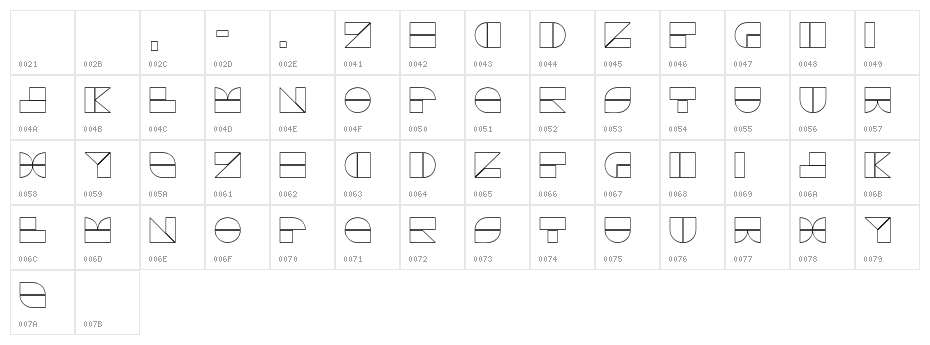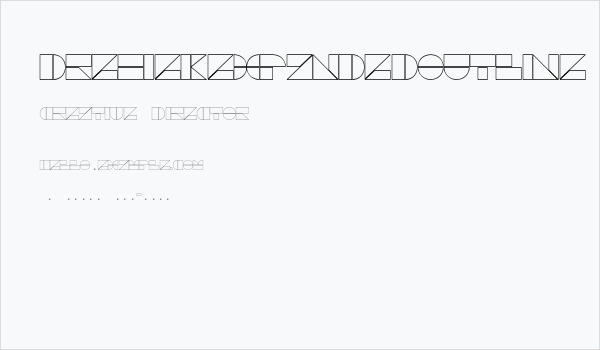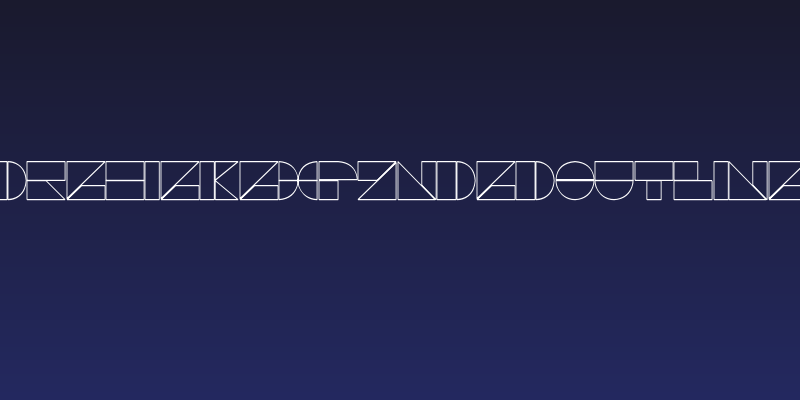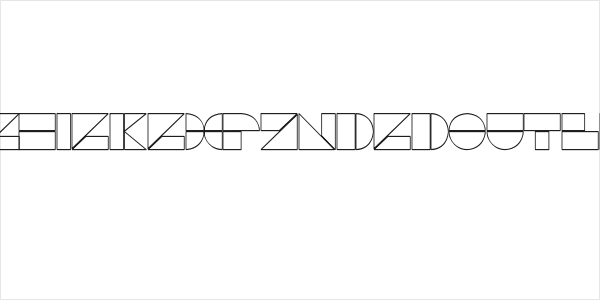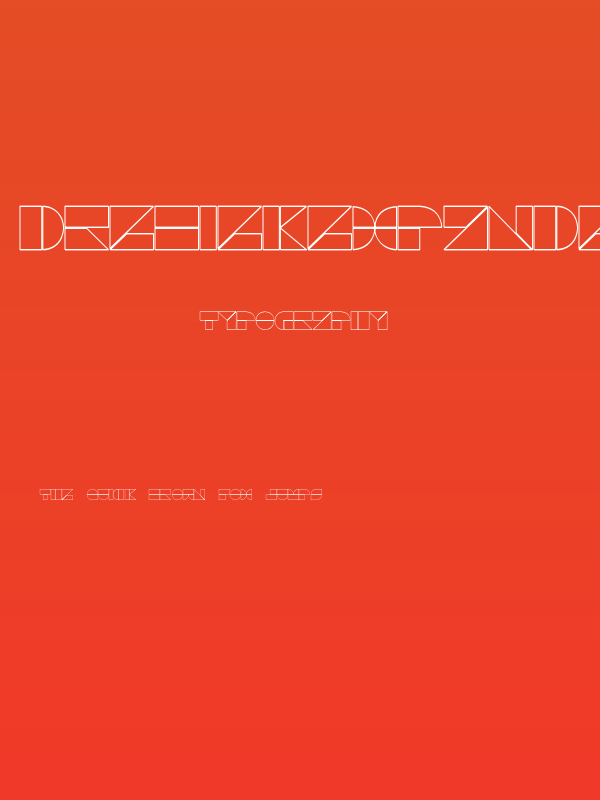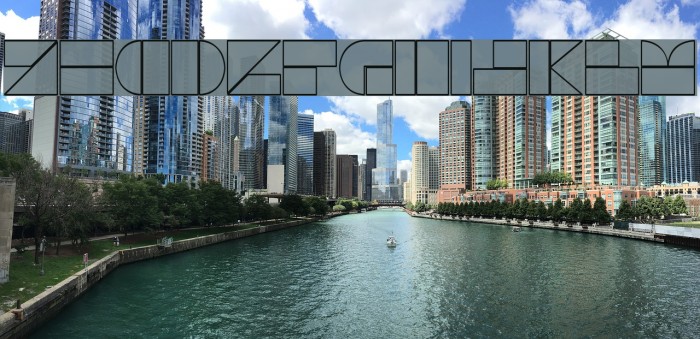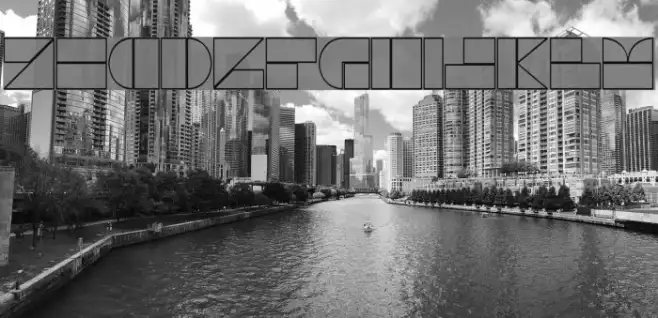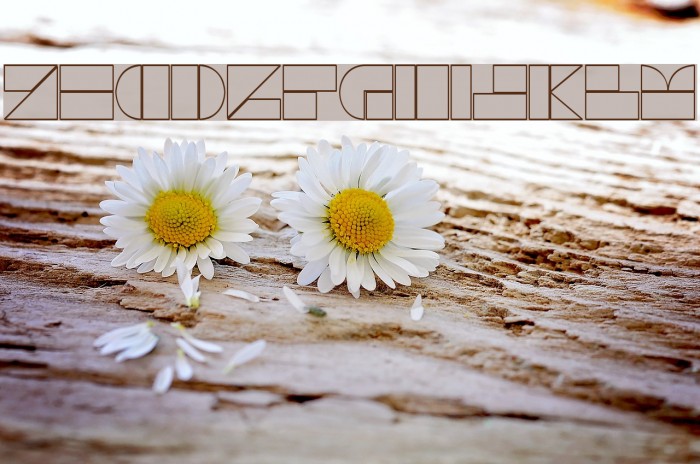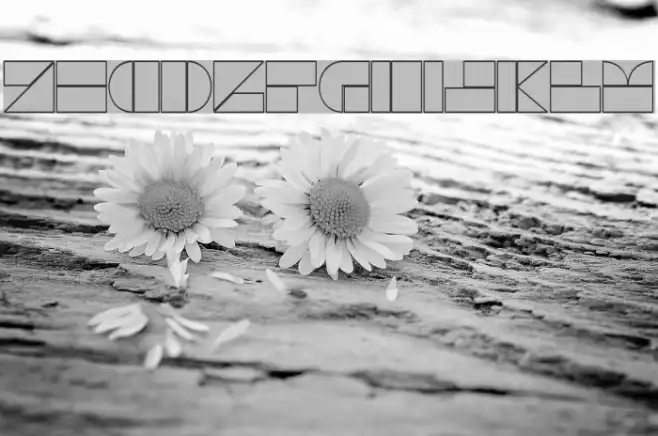
DrebiekExpandedOutline Font
DrebiekExpandedOutline Description
This font features a geometric and futuristic design with an expanded outline style. Each character is constructed using a combination of straight lines and curves, creating a unique and modern appearance. The uppercase letters are bold and striking, with a consistent line thickness throughout. The lowercase letters maintain the same geometric style, providing a cohesive look across the alphabet. The numerals and special characters follow the same design principles, ensuring uniformity. This font's distinct outline style makes it stand out, offering a visually appealing option for creative projects.
| Proposed Projects | Ideal for modern branding, tech-related designs, futuristic posters, and digital artwork. |